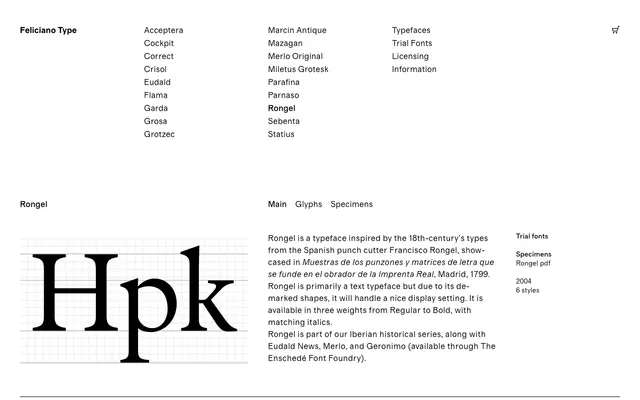
Rongel
Feliciano Type · Francisco Rongel (historical source) · 2004
A text serif drawn from the 18th-century types of Spanish punch cutter Francisco Rongel, part of Feliciano Type's Iberian historical series.
Based on types documented in the 1799 Madrid specimen book of the Imprenta Real, Rongel revives the work of Francisco Rongel in three weights from Regular to Bold with matching italics. Its well-defined letterforms make it equally at home in running text and display settings. The family sits alongside Eudald News, Merlo and Geronimo as part of Feliciano Type's ongoing series of Iberian historical revivals.
Inspired by 18th-century types from Spanish punch cutter Francisco Rongel, placing it firmly in the transitional serif tradition of Baroque-era Iberian typography.